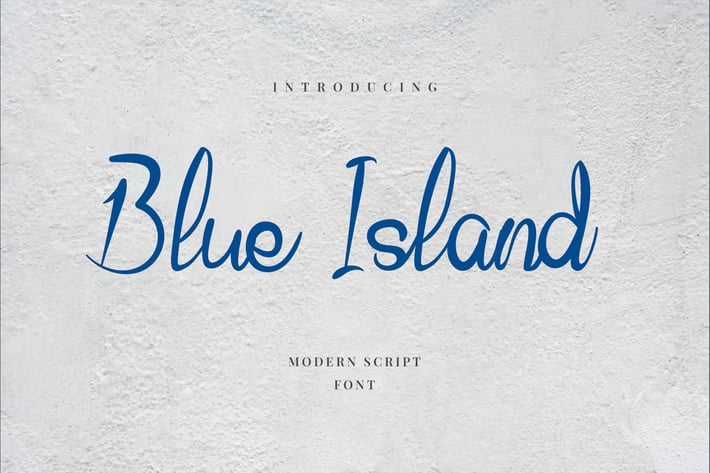
Blue Island Hand Letter Script Font
Introducing Blue Island! A hand-lettered script font with contemporary, enlightened accents. Very suitable to be used for the manufacture quote text, logotype, t-shirt design and concept handmade designs, ect.